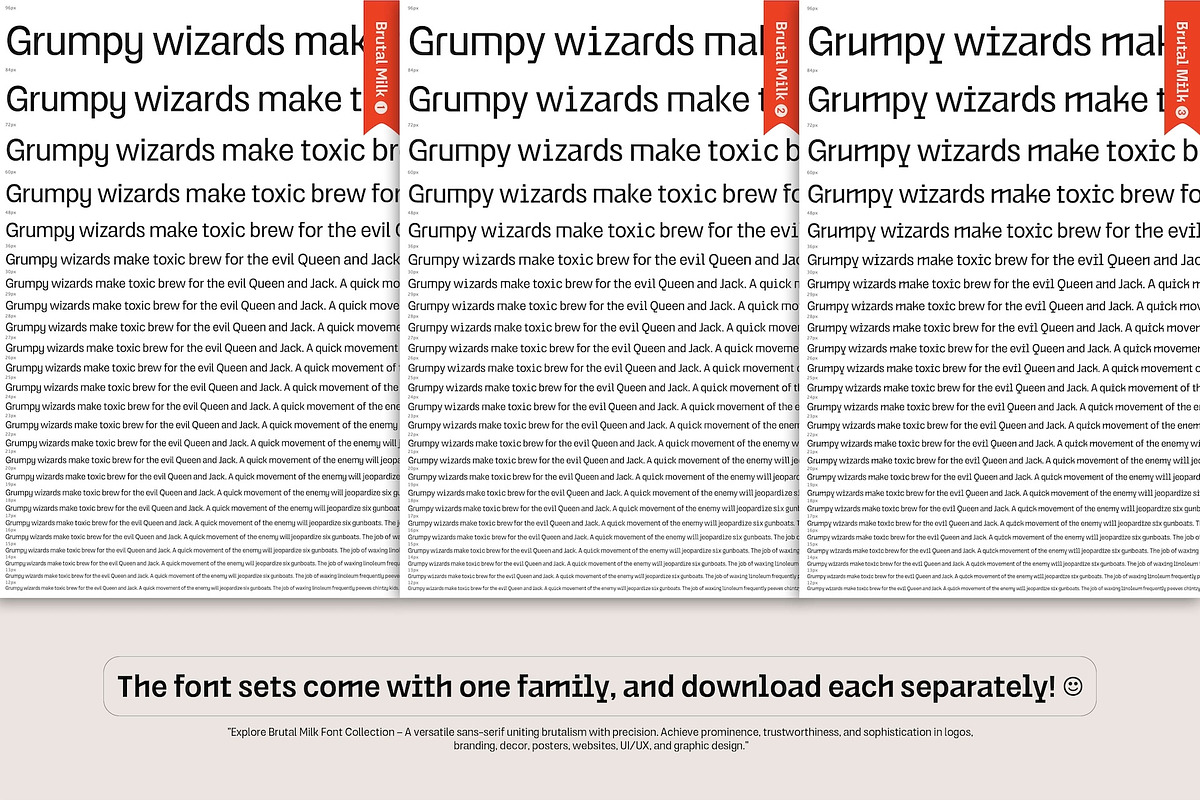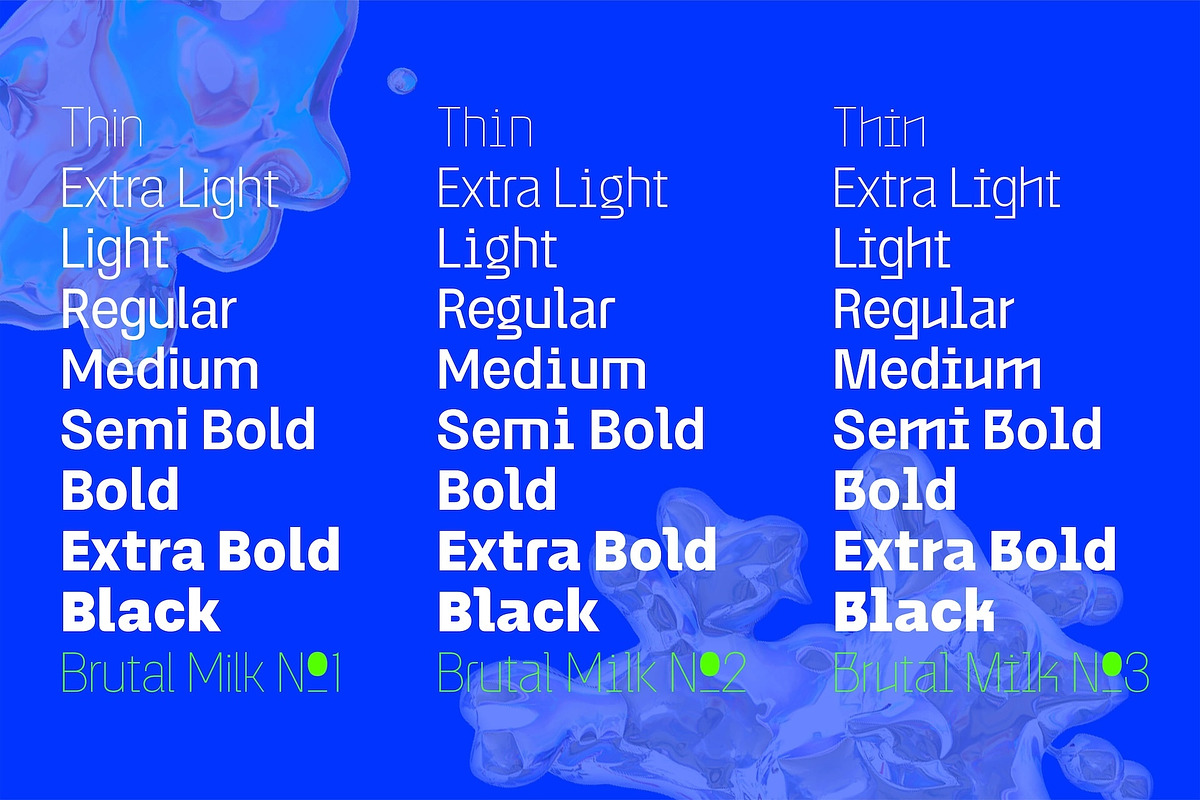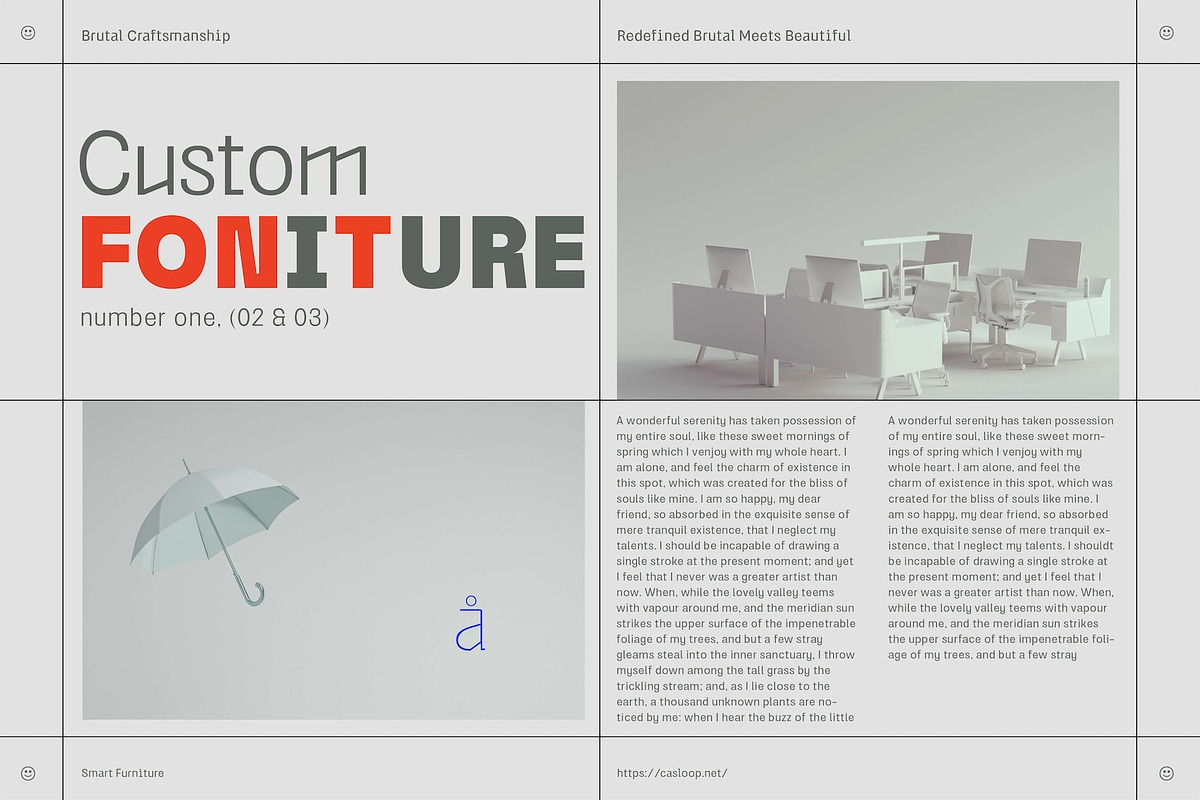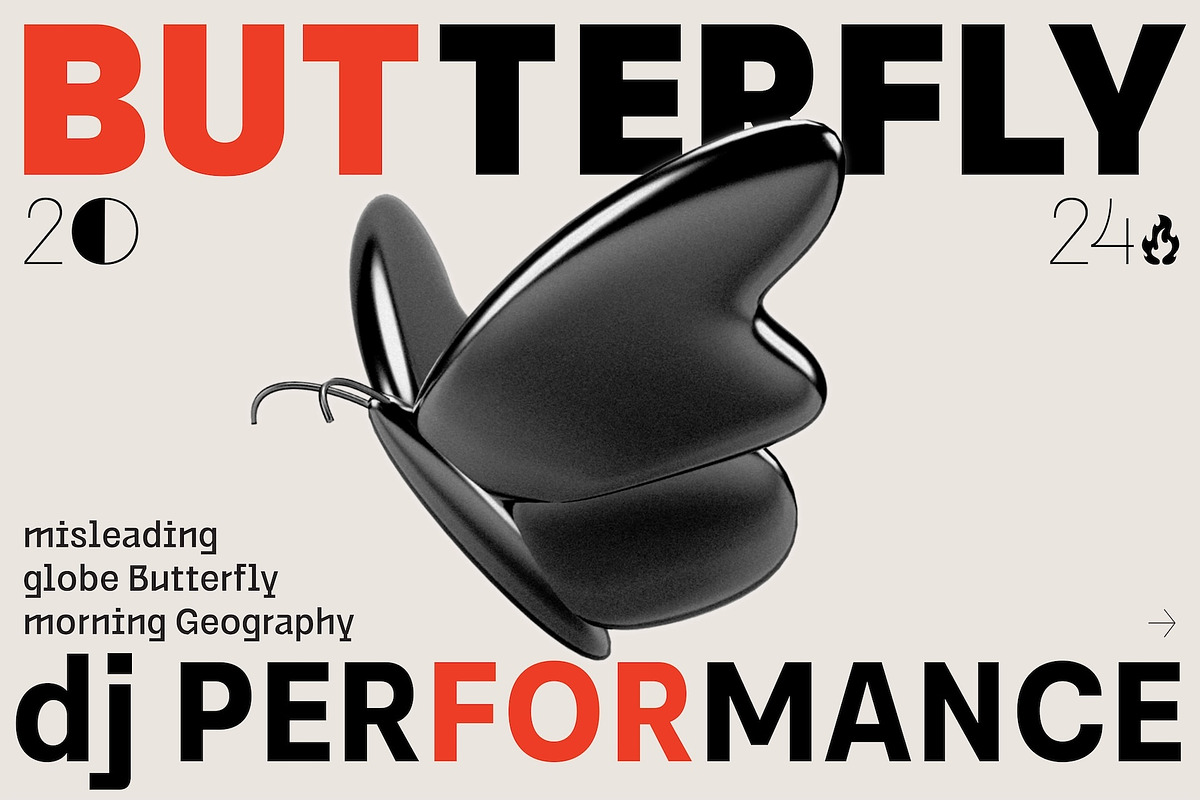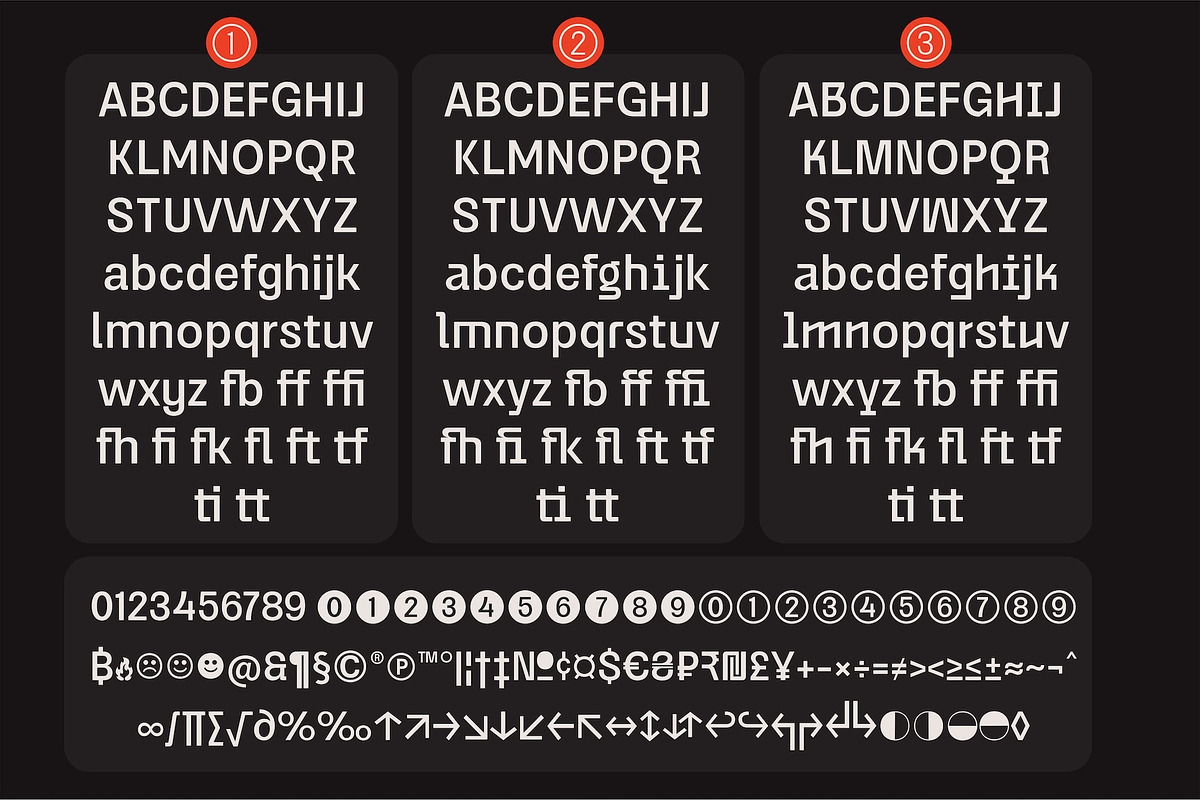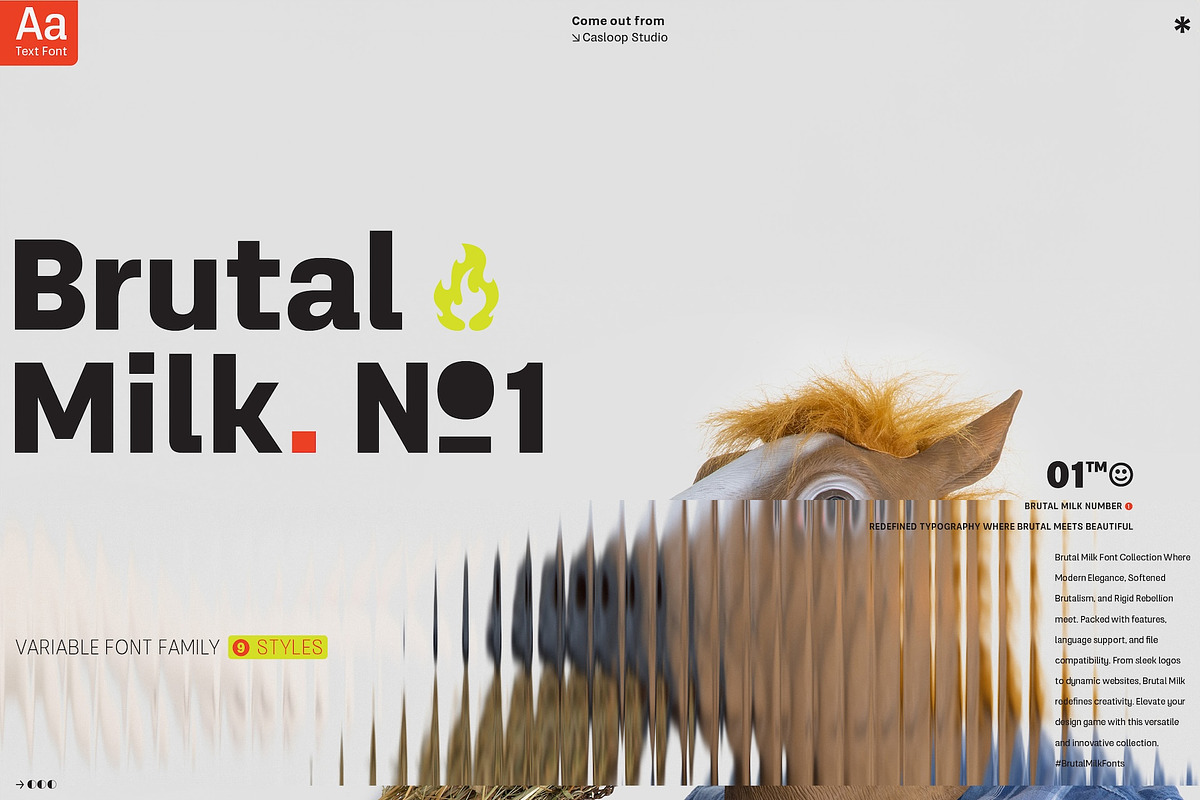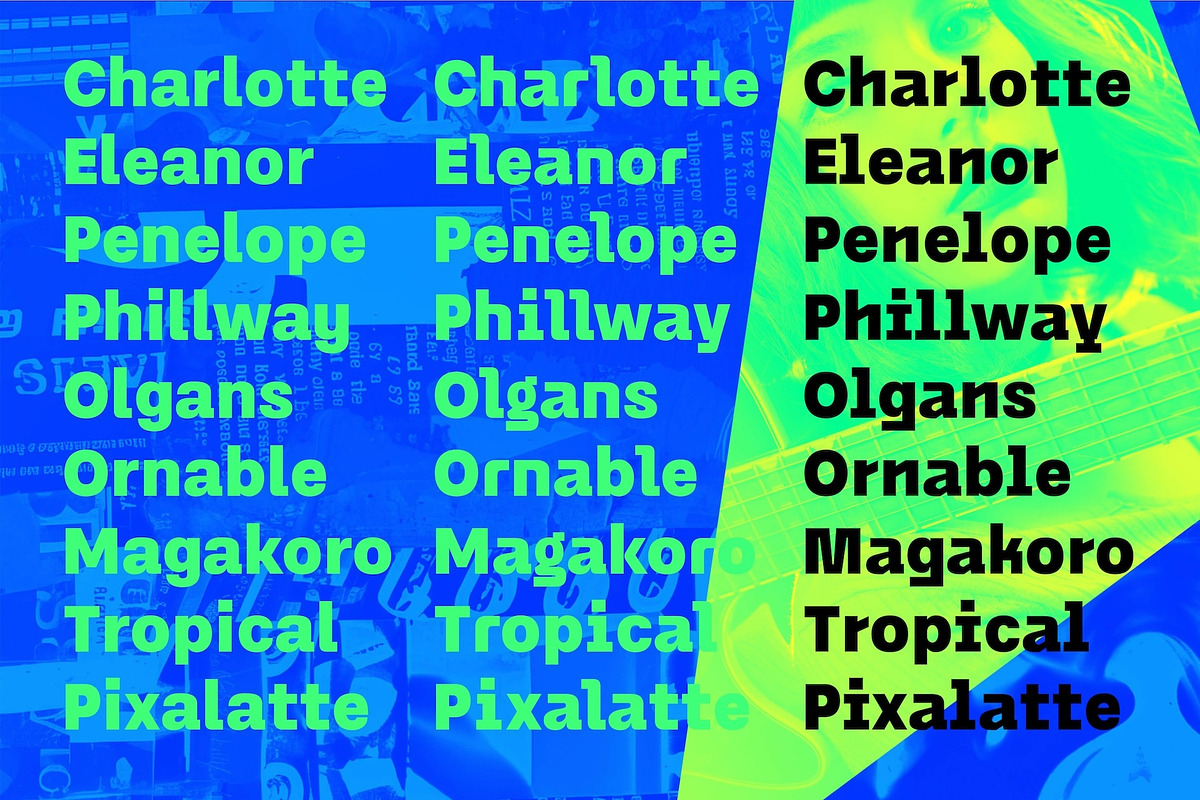
Brutal Milk No 1 - Text
Introducing Brutal Milk Font Collection where prominence, trustworthiness, and sophistication converge.
Brutal Milk is a captivating grotesque typeface that seamlessly blends the robust aesthetics of brutalism with the sleek sophistication of Swiss Design and the nostalgia of Y2K. This collection featuring three distinctive variants – Brutal Milk No1, Brutal Milk No2, and Brutal Milk No3 – offers a unique typographic journey for extraordinary design.
Let's break down what we present in this work
Brutal Milk No.1 | Modern Elegance with a Brutal Twist Aims for body text with the perfect balance of elegance and modernity. Brutal Milk No.1 is meticulously crafted for optimal readability, making it an ideal choice for a wide range of applications.
Brutal Milk No.2 | Softened Brutalism for Approachable Headers Aims for display/header text with a gentle and approachable impression. Brutal Milk No.2 is crafted to add a touch of warmth to your designs, making it perfect for conveying a friendly and inviting tone.
Brutal Milk No.3 | Rigid Rebellion for Prominent Headers Make a bold statement with headers that exude firmness. Brutal Milk No.3 is designed to capture attention with its rigid impression, injecting a sense of prominence and confidence into a visual identity.
The Features The Brutal Milk Font Collection comes loaded with features such as case-sensitive forms, discretionary ligatures, ordinals, fractions, denominators, numerators, superscripts, and scientific inferiors – ensuring flexibility in design needs.
Language Support From Western and Central European languages to South Eastern European, South American, Oceanian, and even Esperanto, Brutal Milk Collections caters to a diverse range of linguistic needs.
Brutal Milk stands as a testament to versatility and innovation. Whether you're crafting a sleek logo, establishing a brand identity, adorning decor, creating impactful posters, delivering compelling presentations, designing dynamic websites, refining UI/UX experiences, or engaging in graphic design endeavour. The impressions it imparts—modern, minimal, youthful, funky, groovy, trendy, hip, fly, and undeniably cool—speak volumes about its adaptability to contemporary design trends.
Redefine the boundaries of creativity and immerse yourself in the dynamic world of Brutal.